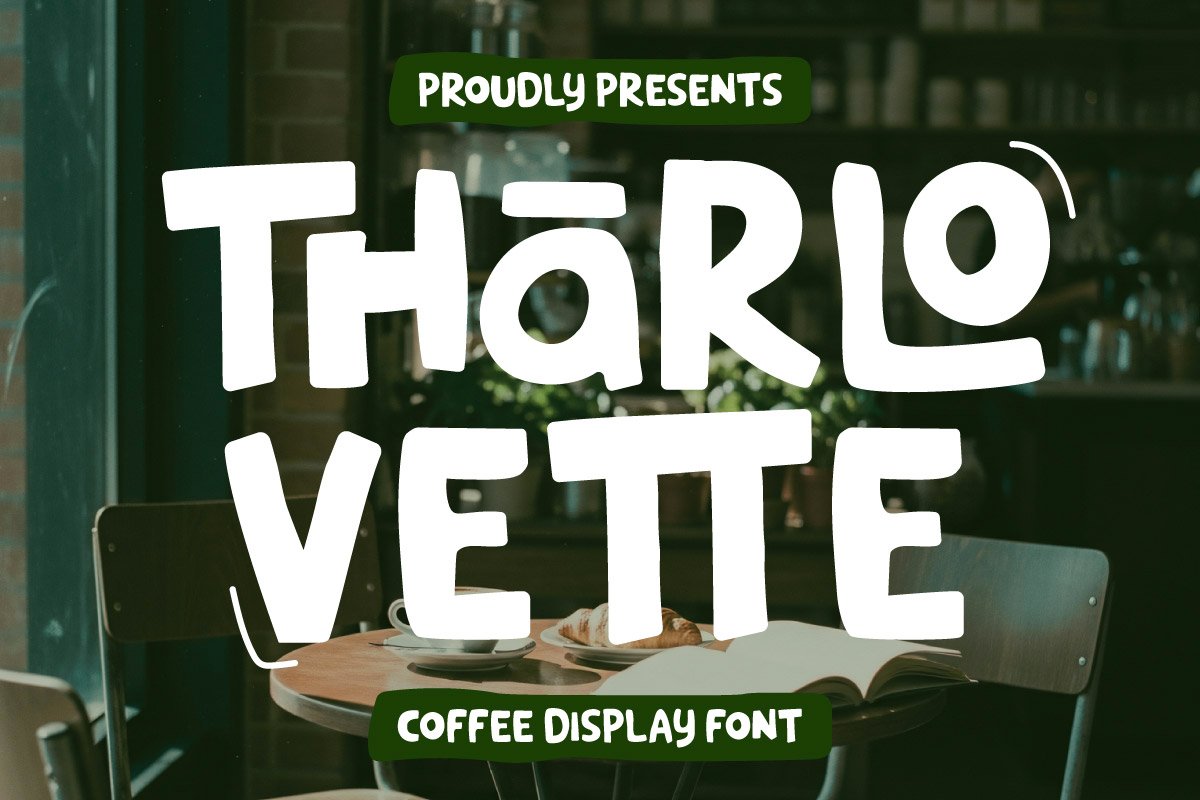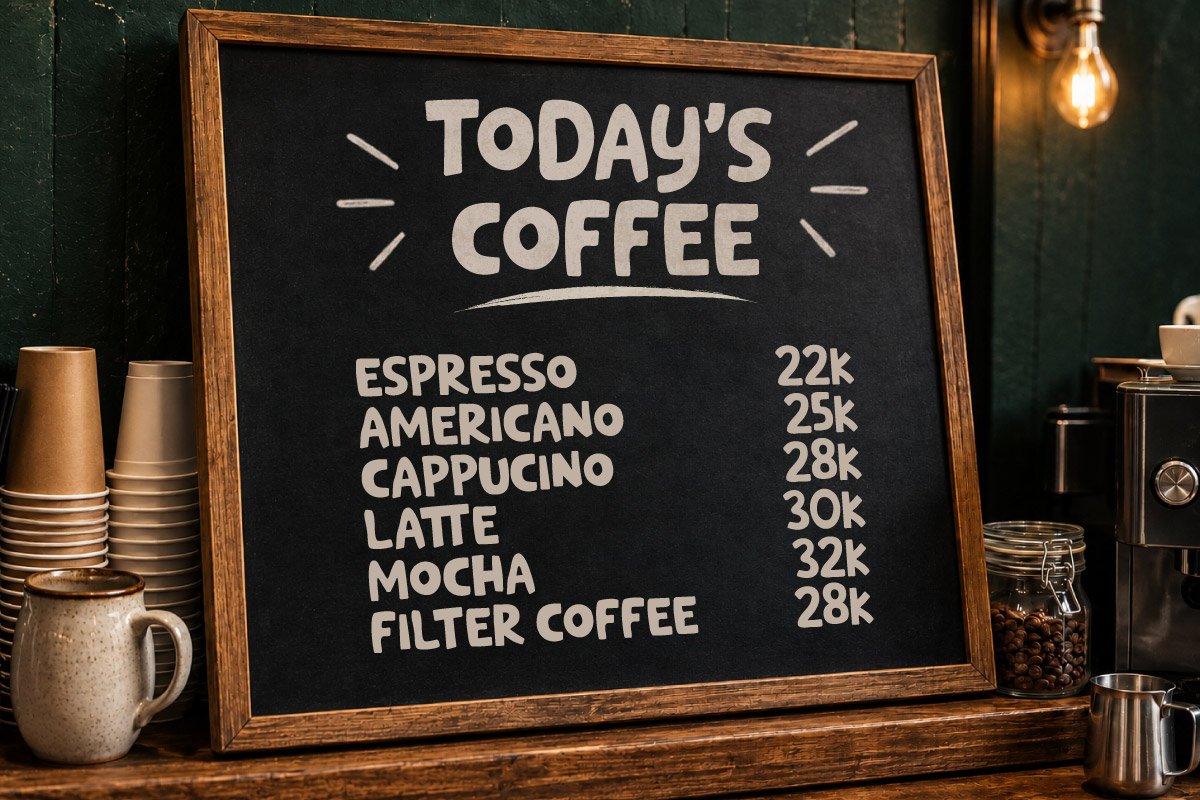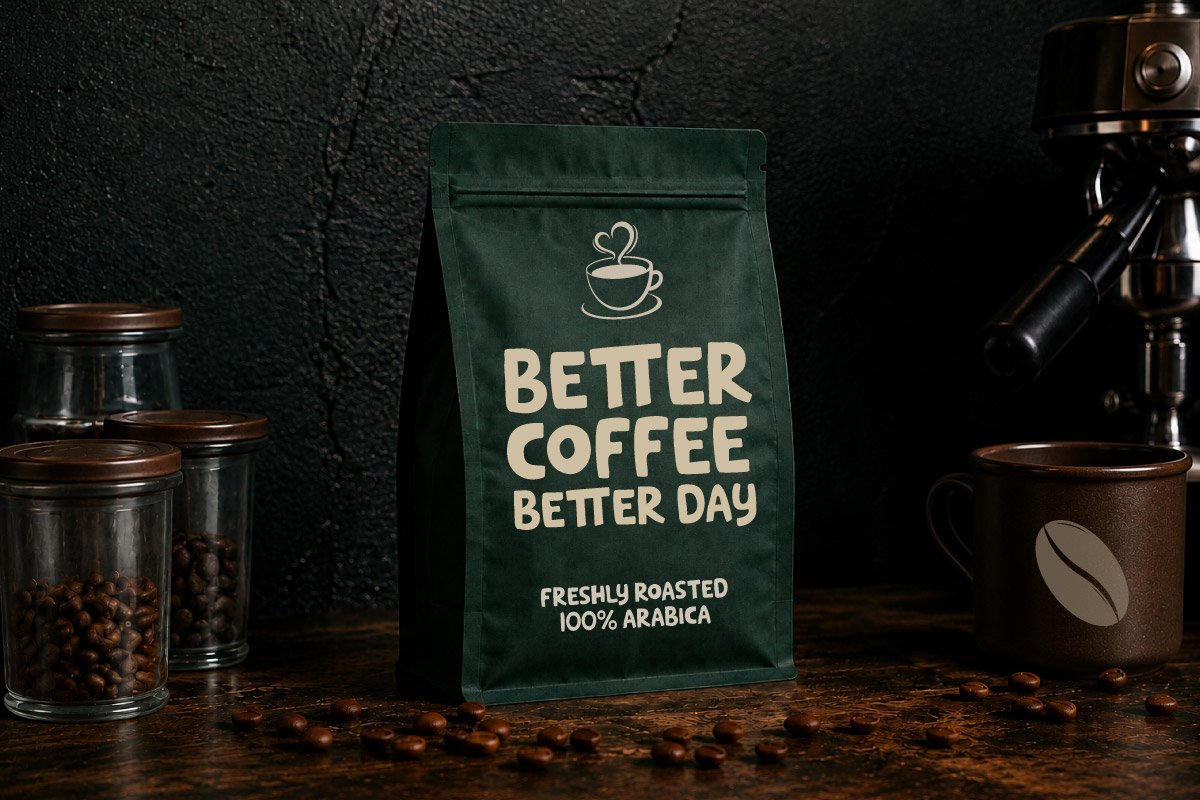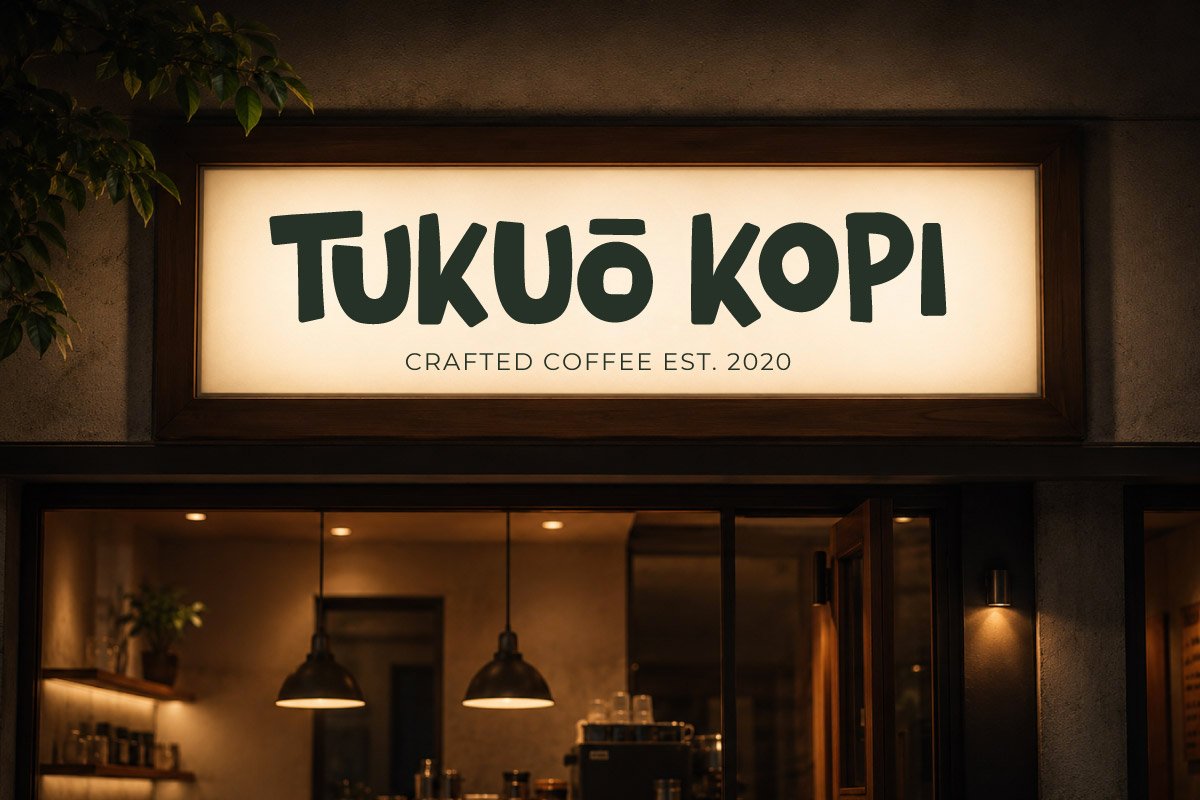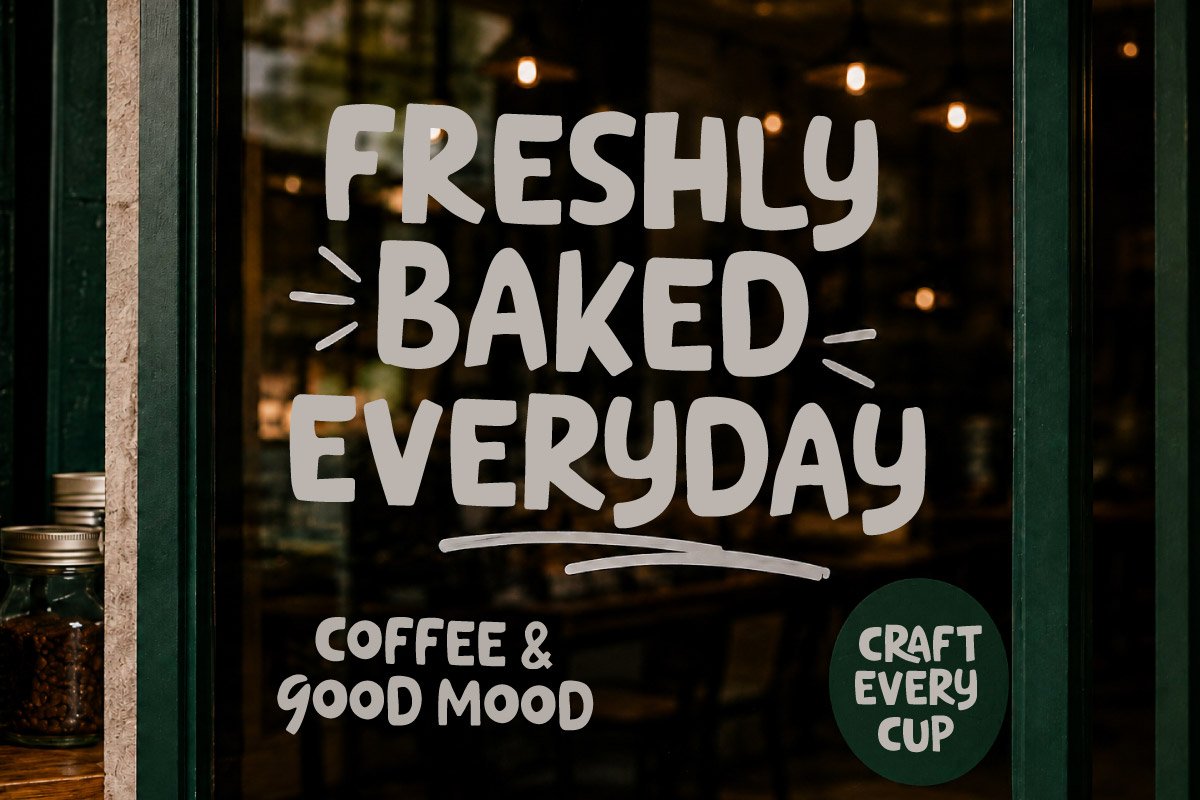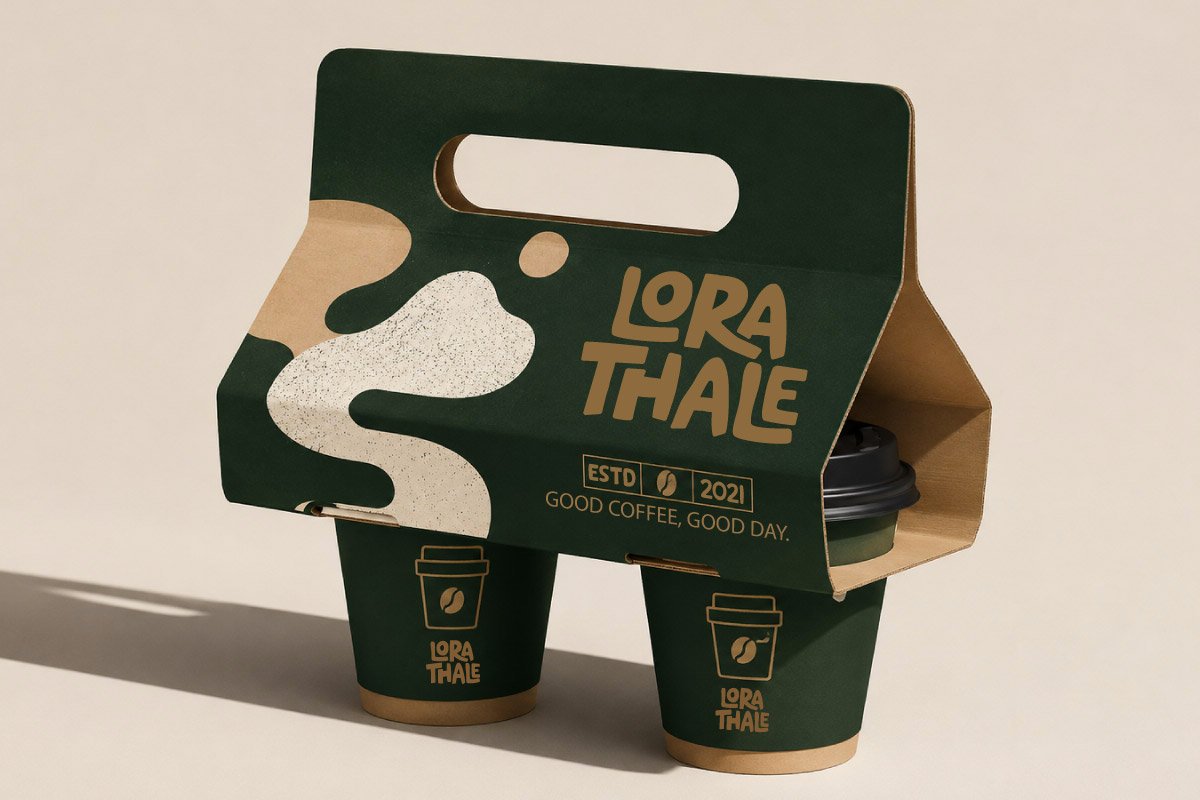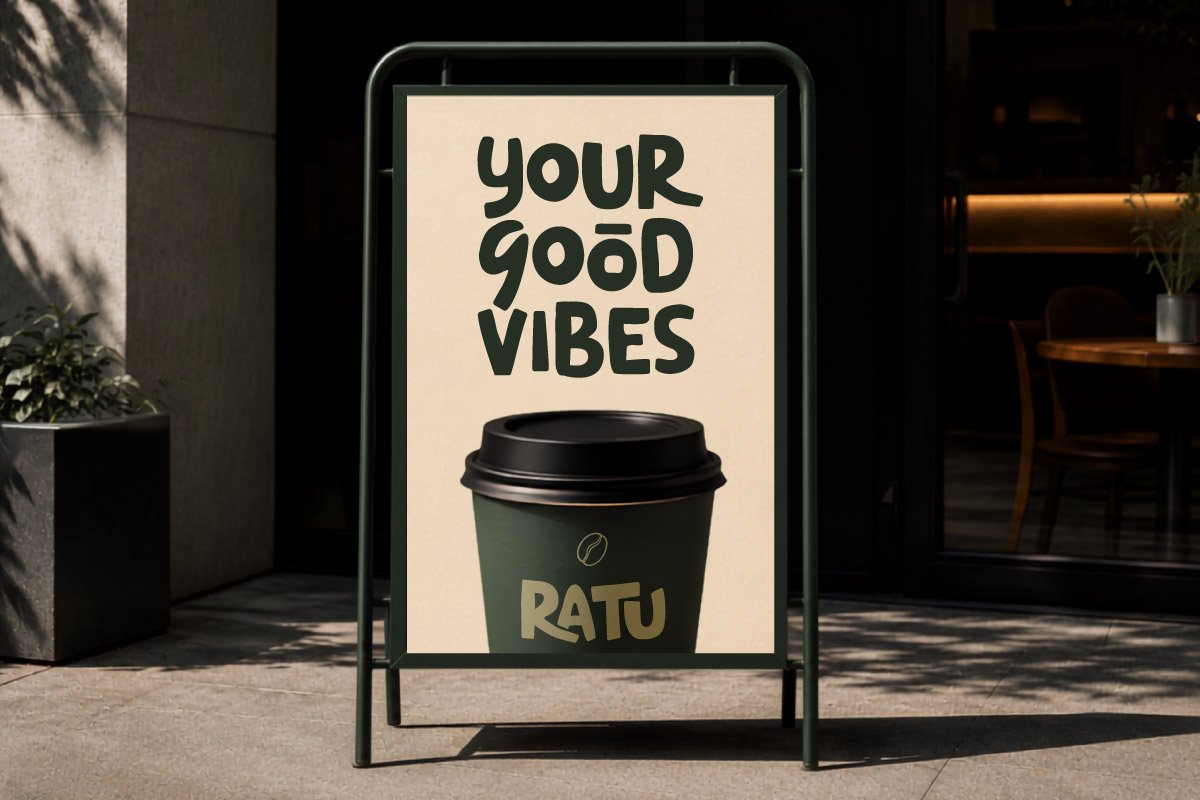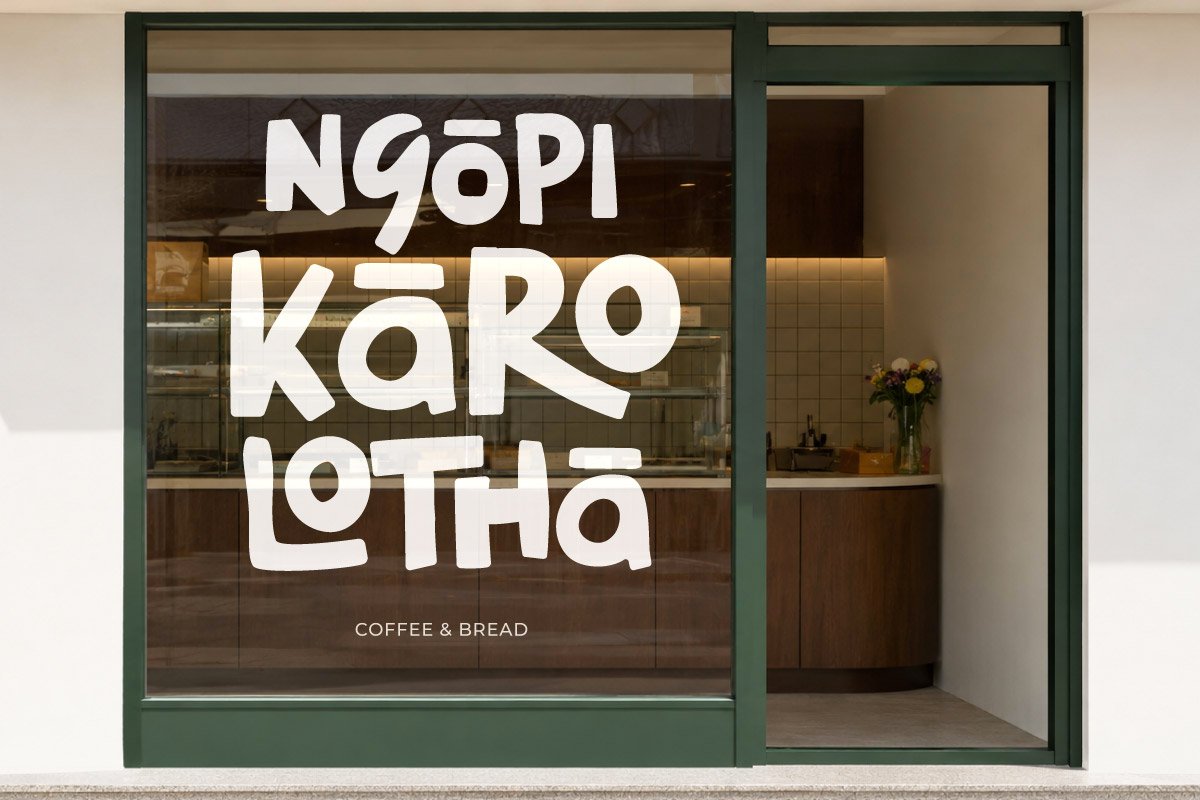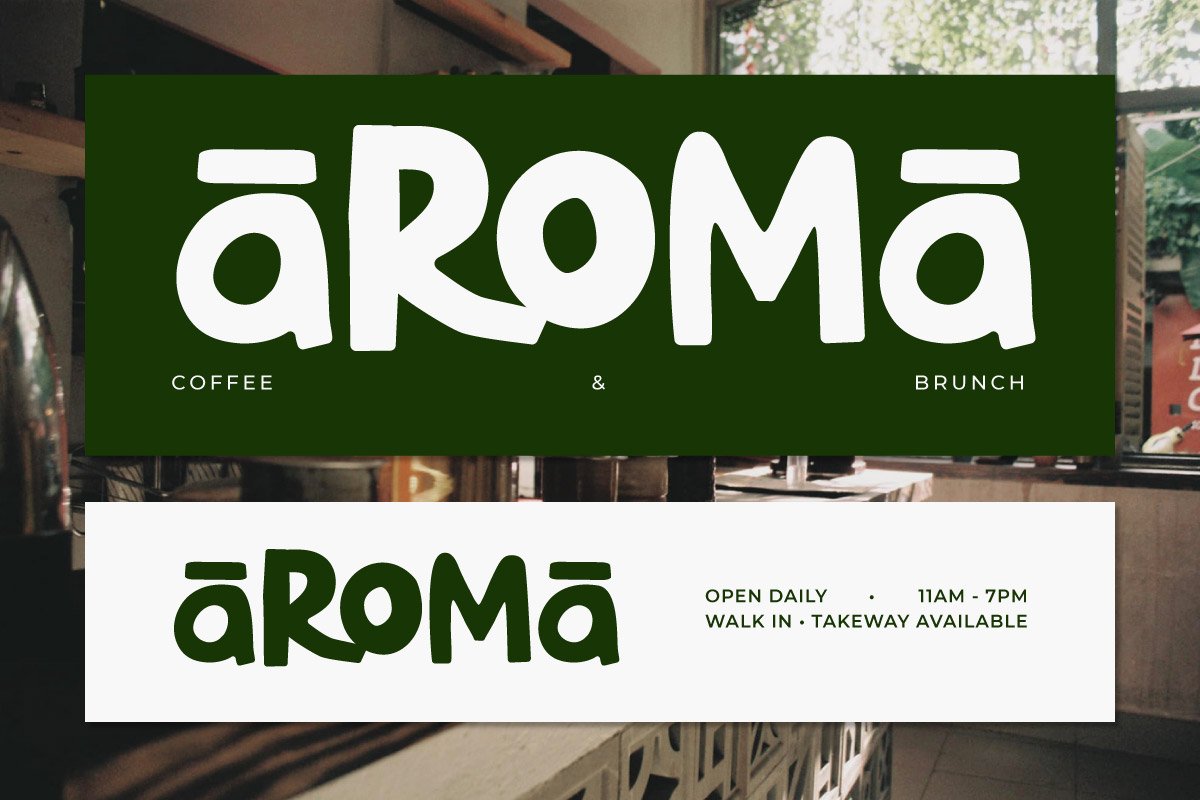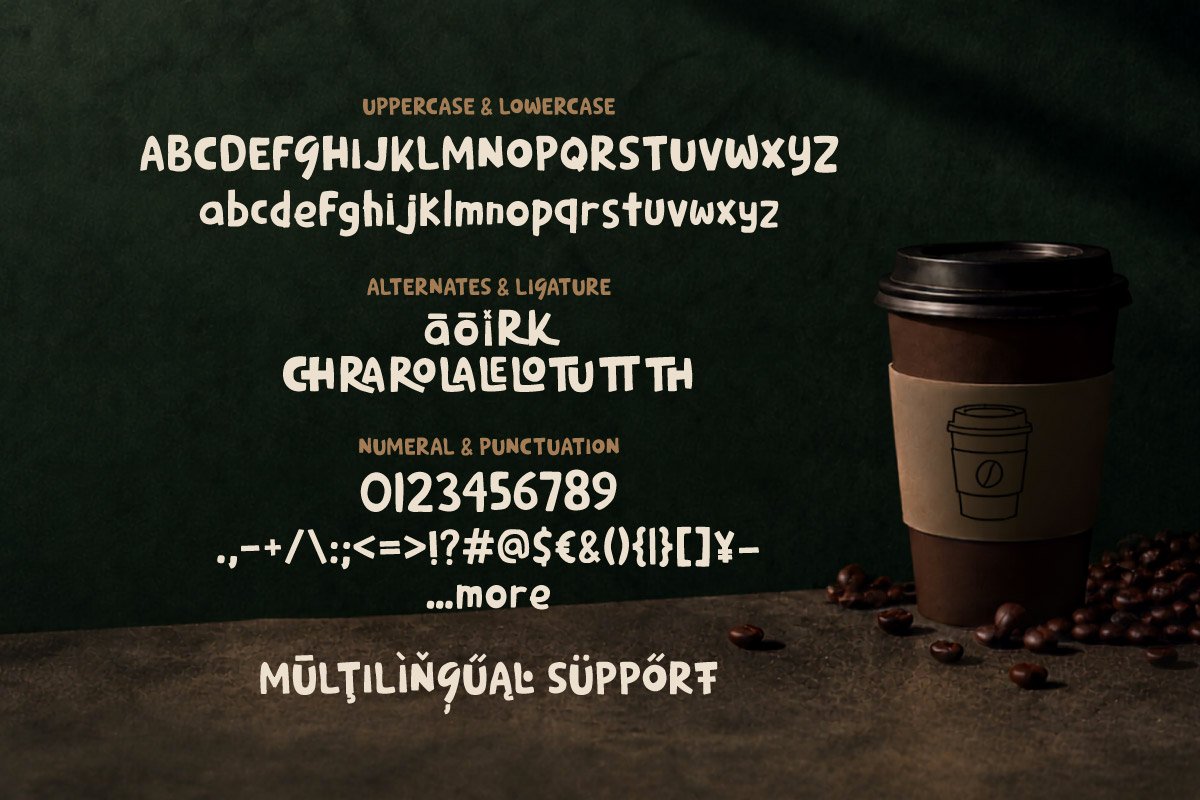
Tharlo Vette – Coffee Display Font
Tharlo Vette – Coffee Display Font is a handwritten display font featuring rounded, organic, and playful letterforms that create a warm, friendly, and cozy feeling. Its bold yet approachable character makes it perfect for building a memorable visual identity for food and coffee lifestyle brands.
Designed for coffee shops, artisanal culinary brands, bakeries & pastry businesses, and local roasteries, this font works beautifully for coffee shop branding, logos, menus, packaging, signage, coffee labels, bakery branding, product packaging, and promotional materials. Its rounded and organic forms add a handcrafted touch for brands that want to feel authentic and welcoming.
Tharlo Vette is an ideal choice for graphic designers, café owners, food brands, roasters, and creative agencies looking for a handwritten display font with a distinctive personality for creating personal, modern, and recognizable culinary branding.